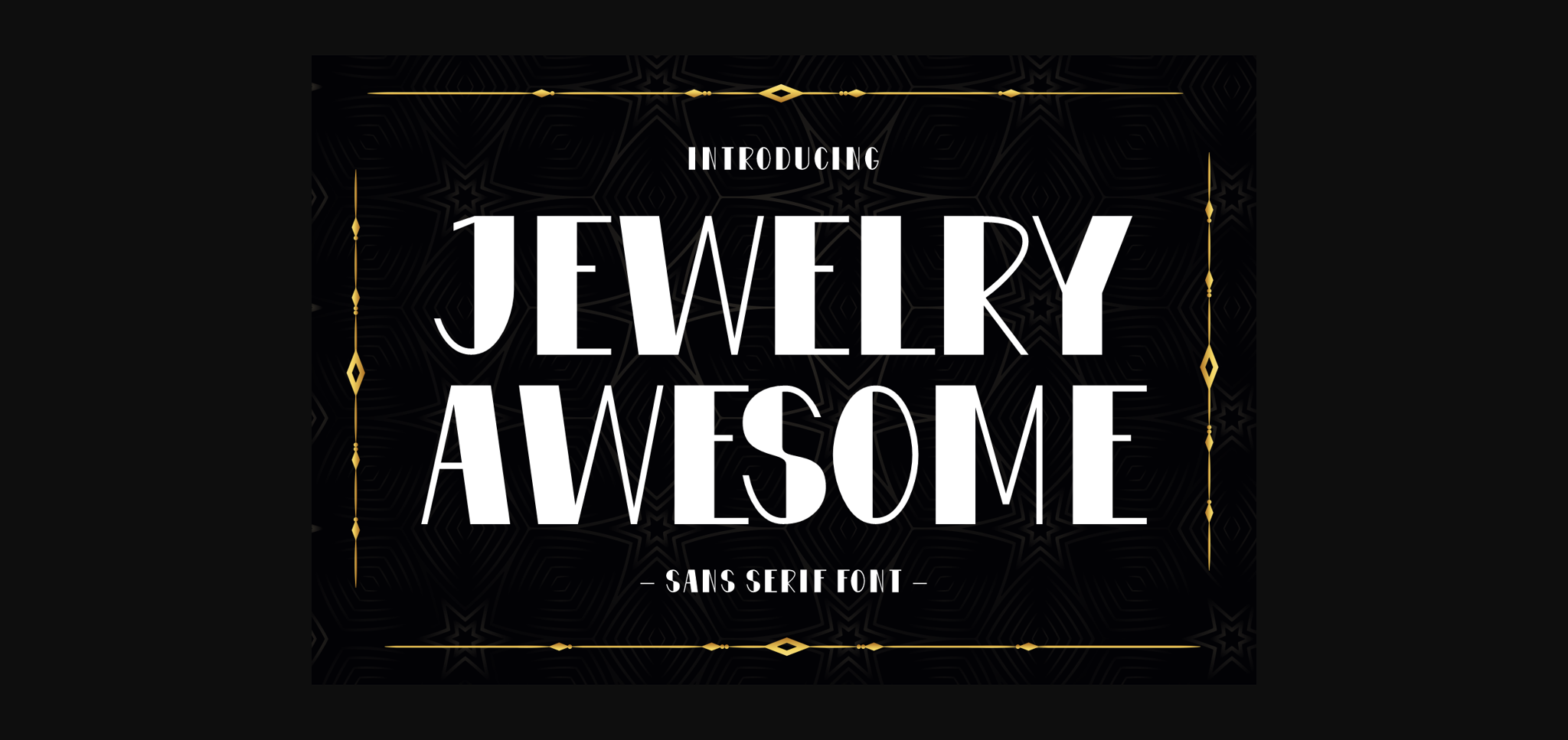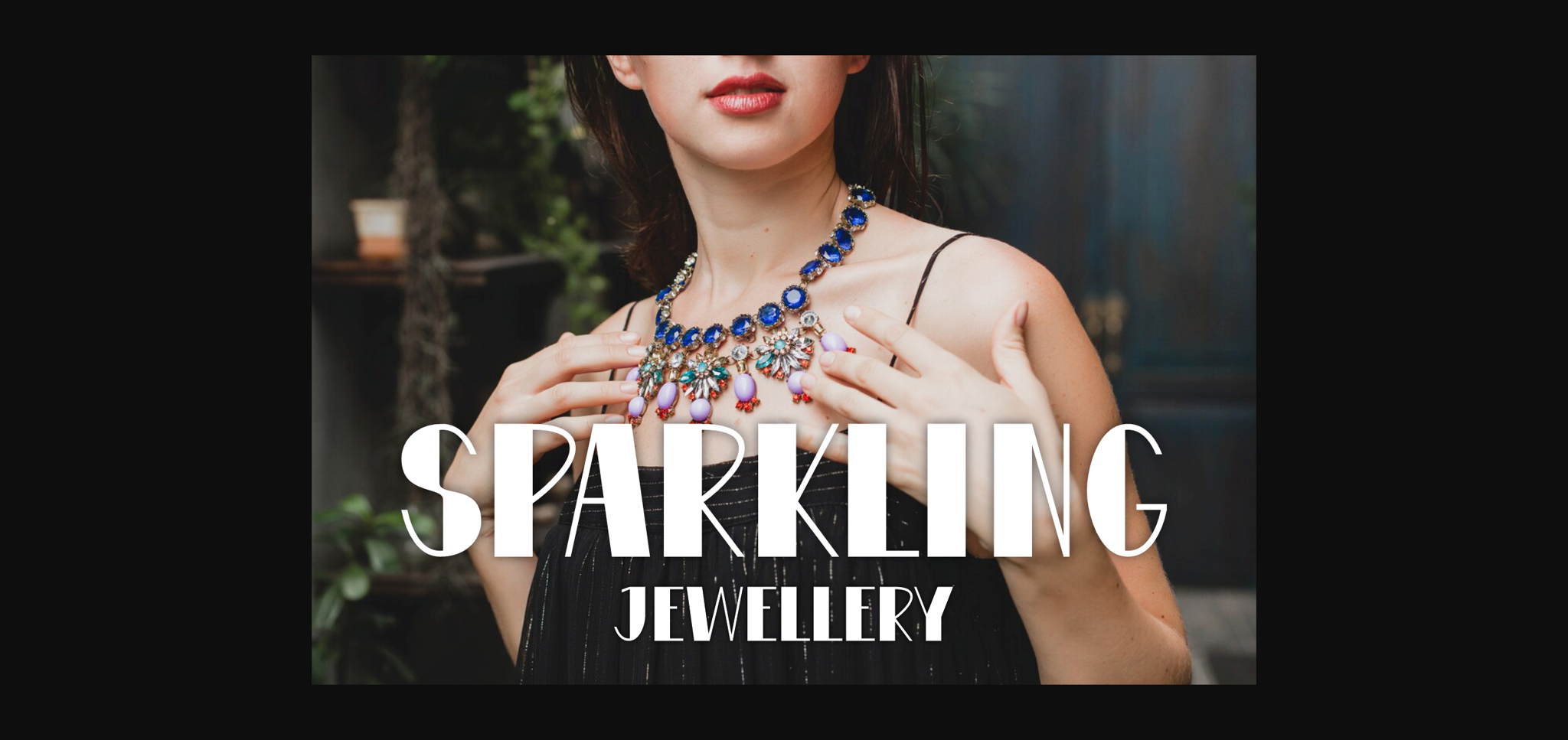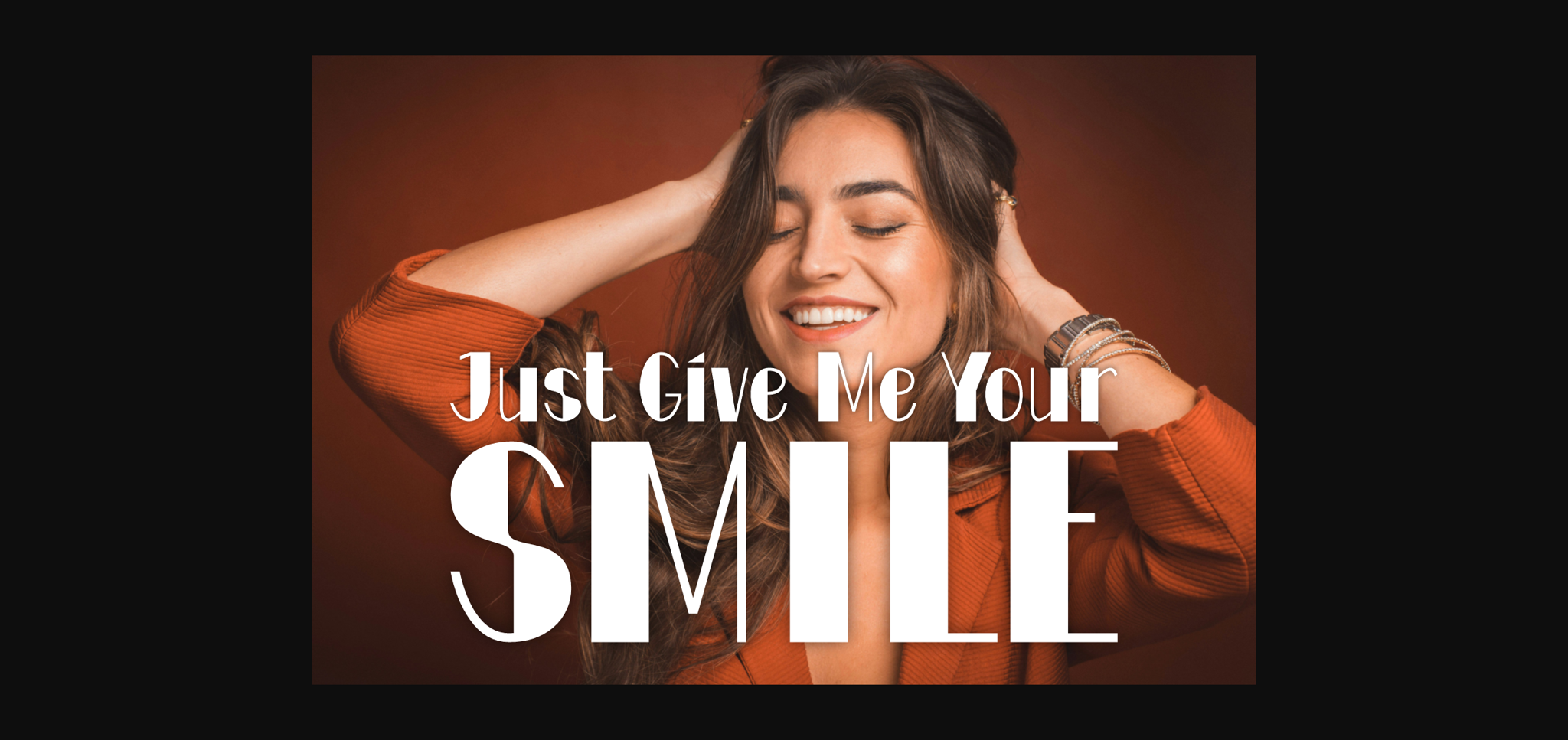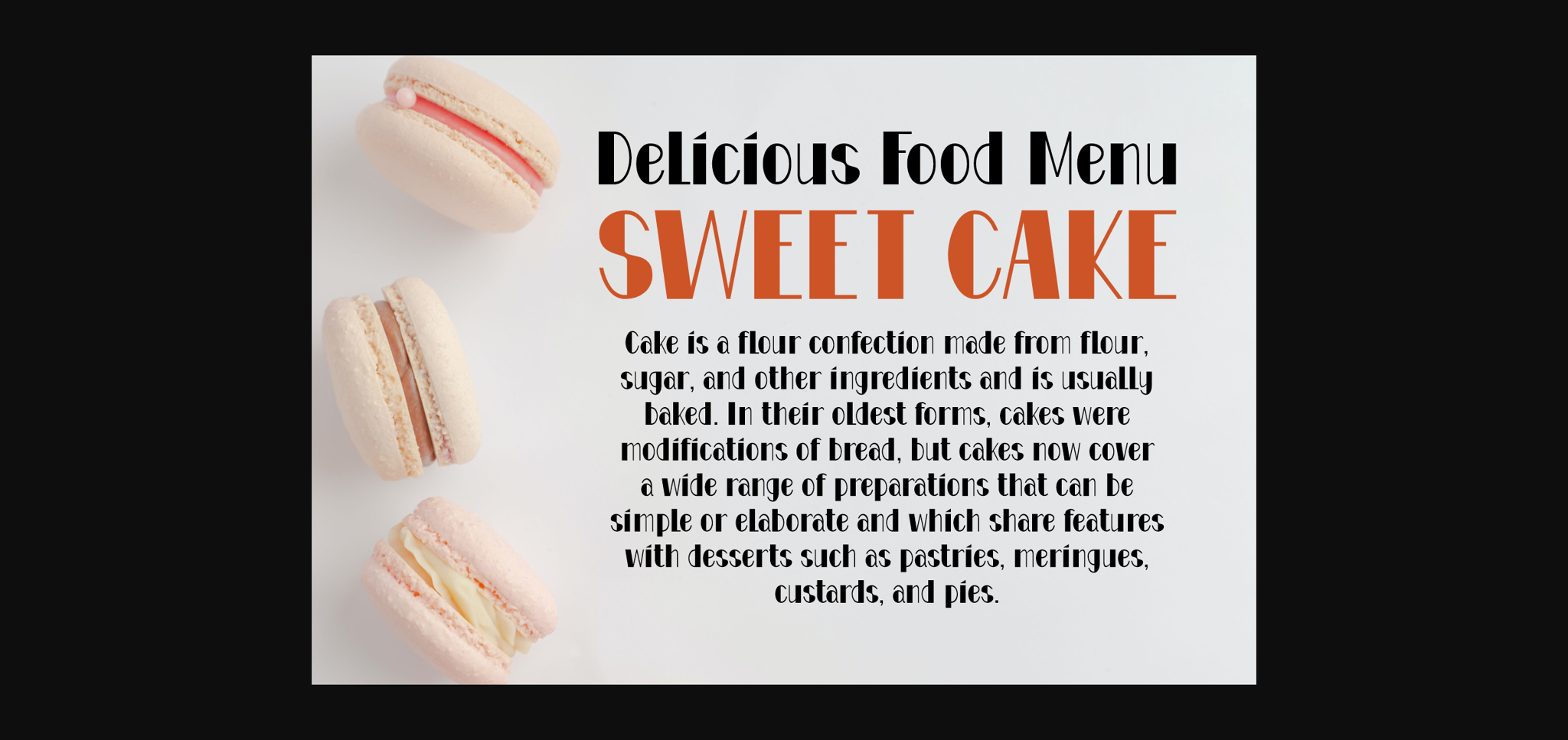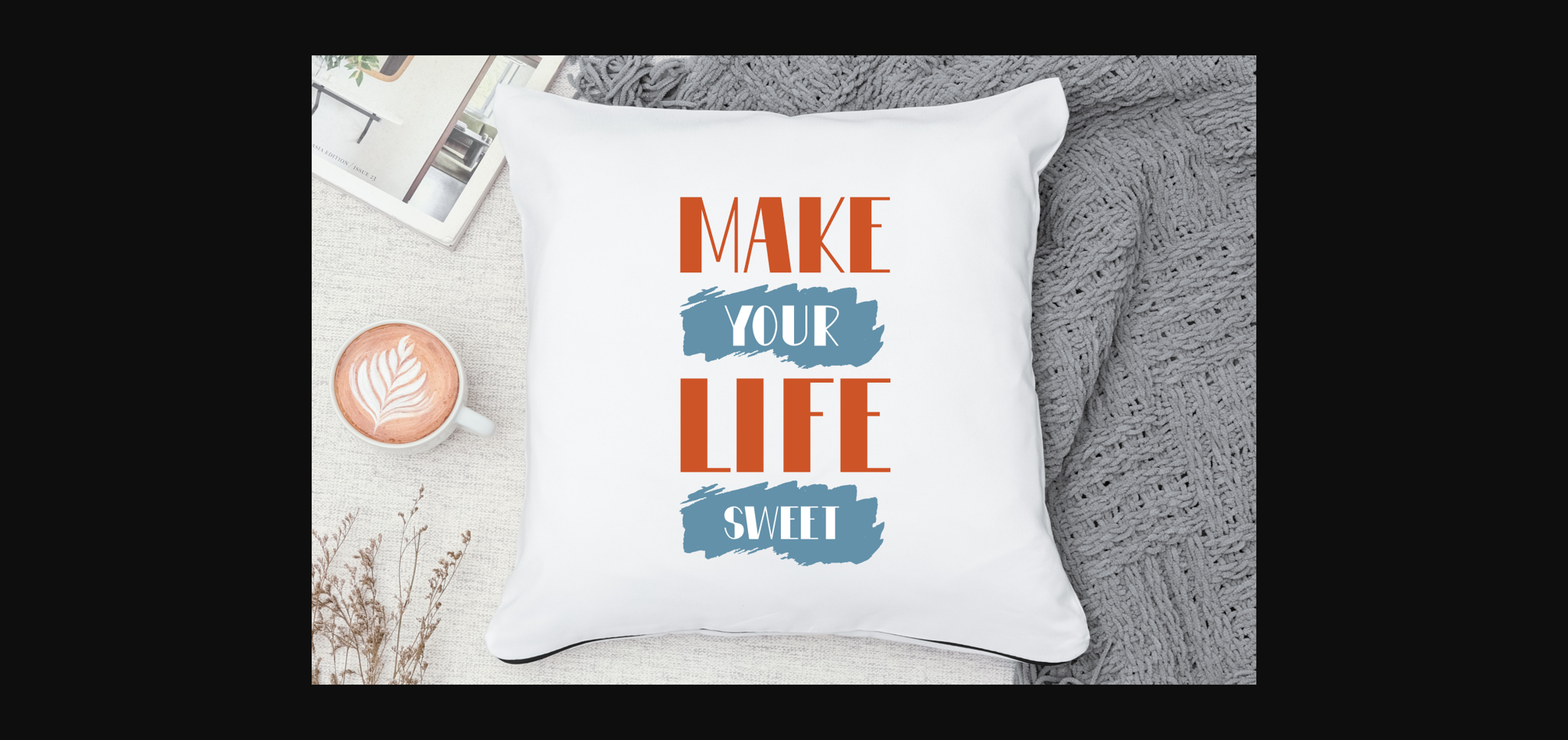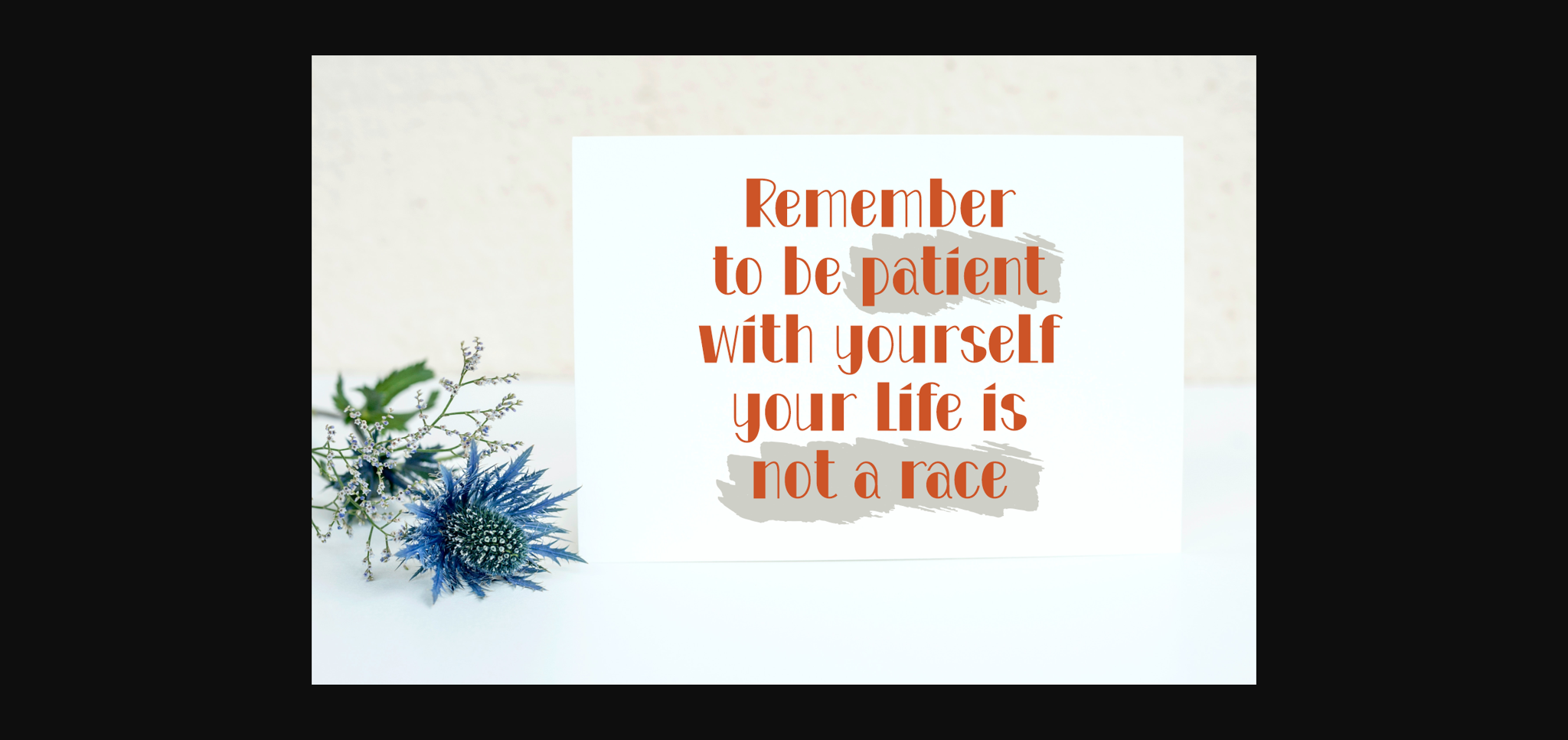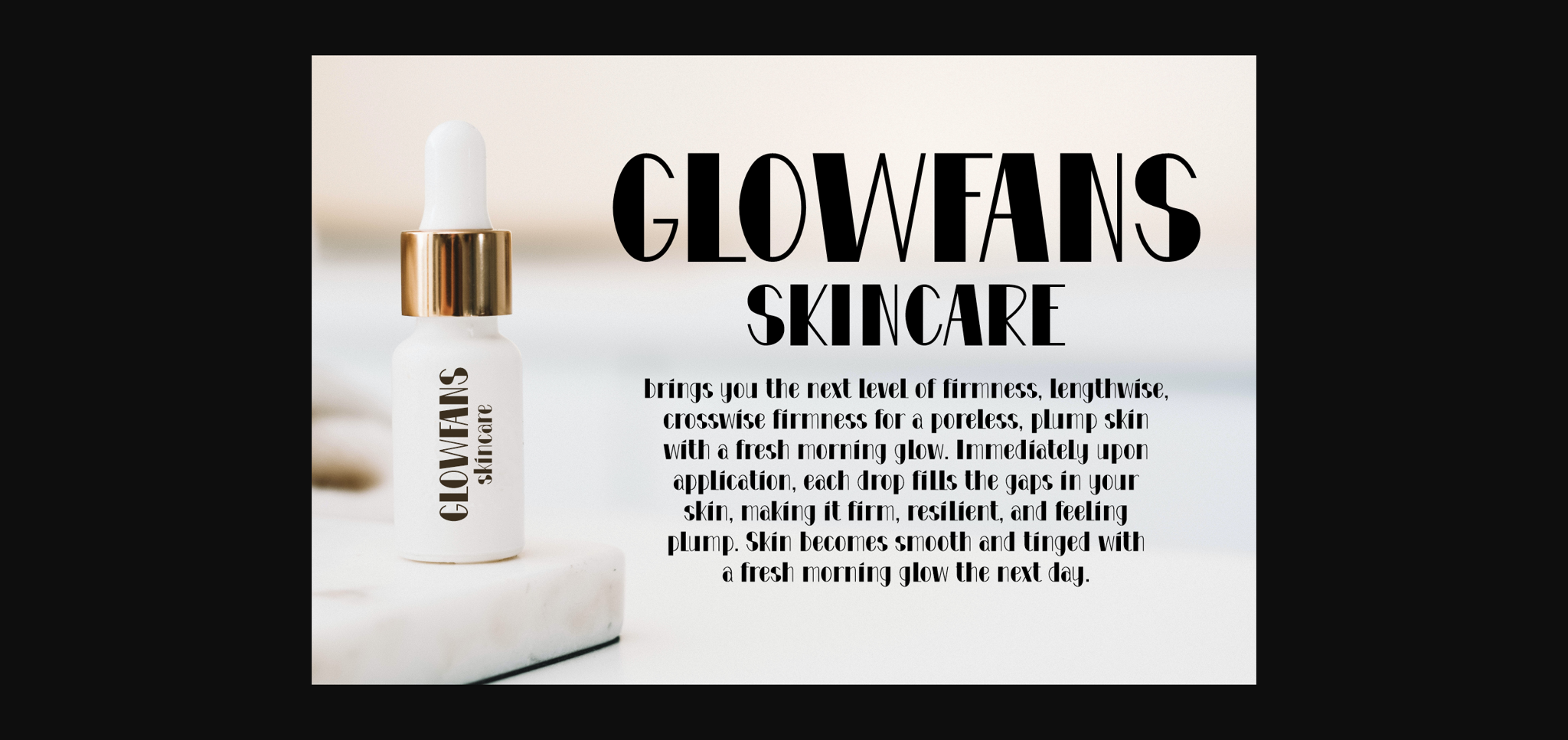
Jewelry Awesome Font
About Jewelry Awesome Font
Introducing Jewelry Awesome, a clean and stylish sans serif font. Perfect for adding a touch of elegance to your designs, whether it’s for jewelry branding, fashion, or any creative project. With its modern and minimalist look, Jewelry Awesome is sure to make your text shine like a precious gem.